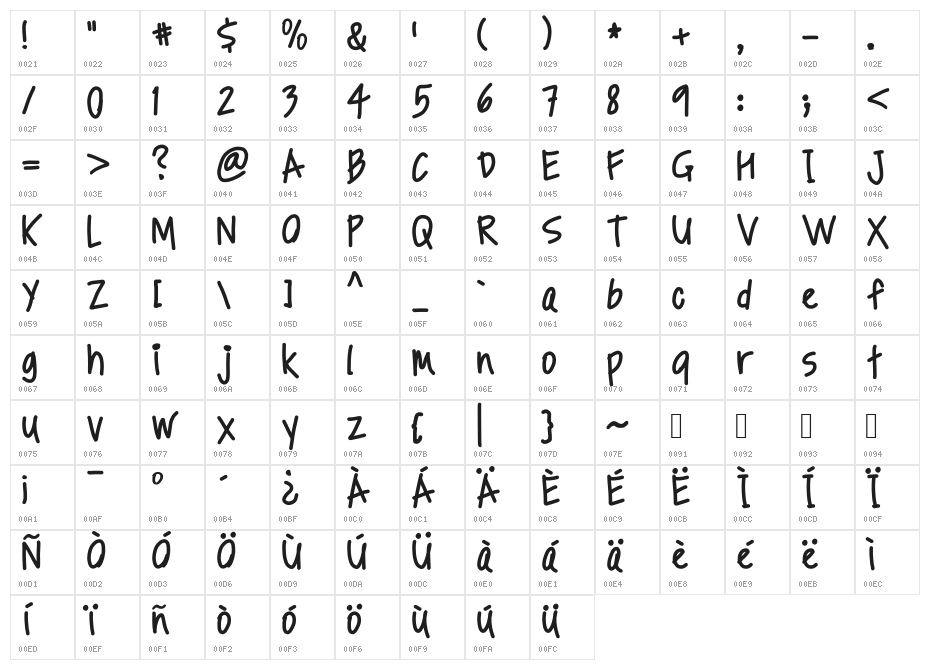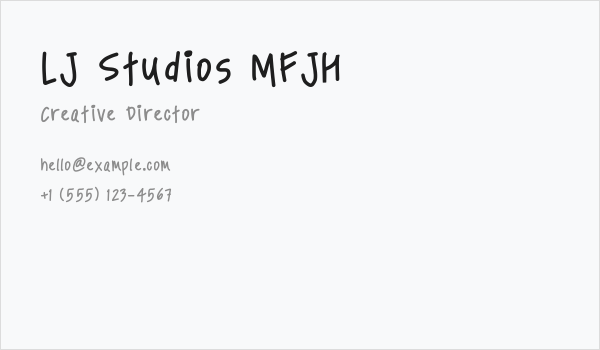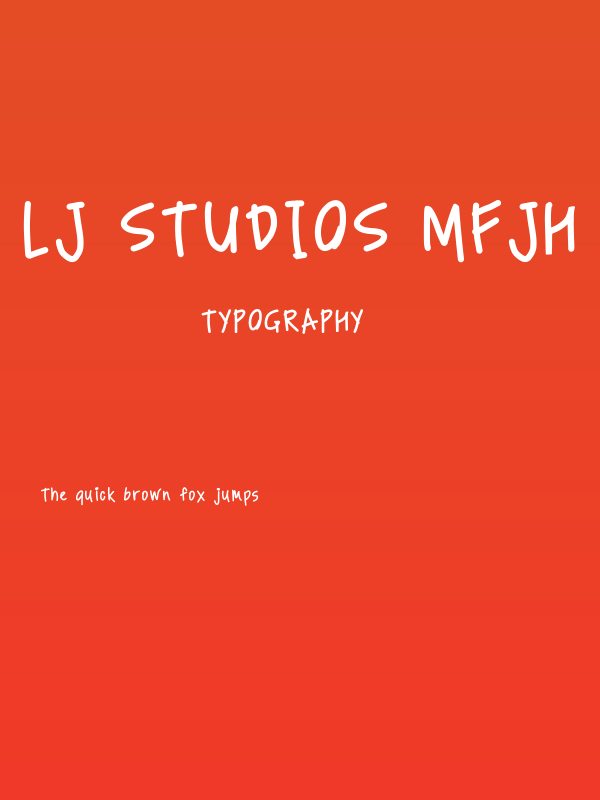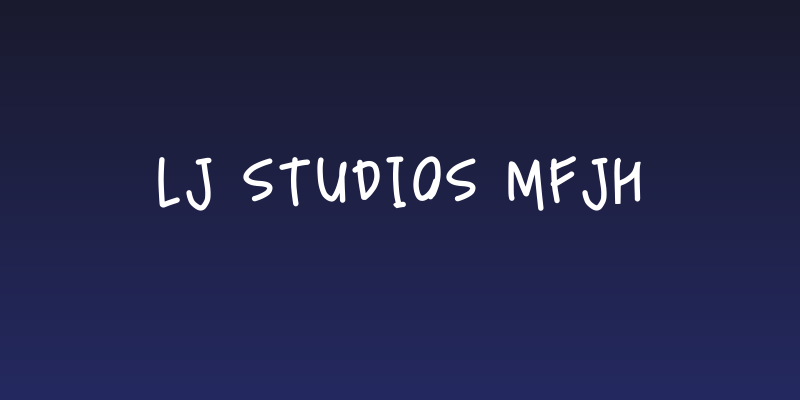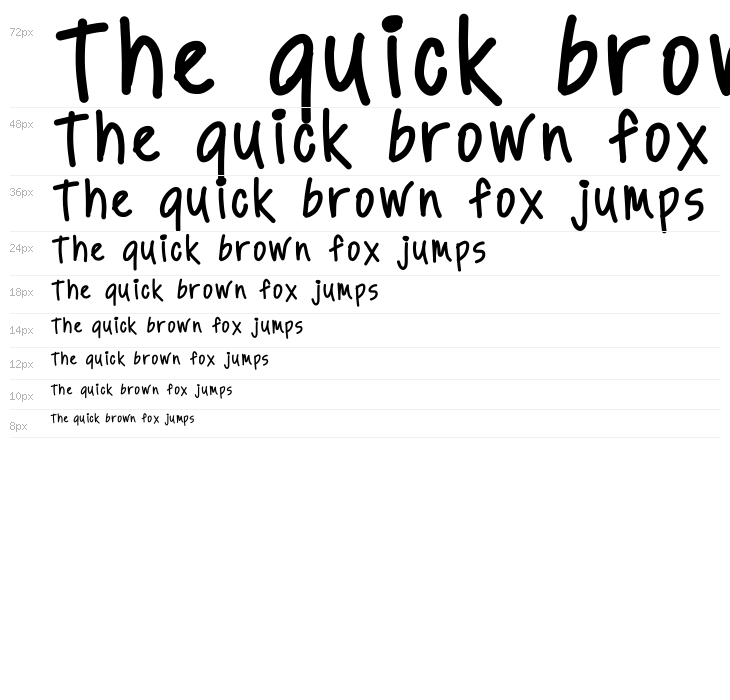
LJ Studios MFJH Font
LJ Studios MFJH Description
This font exudes a playful and casual vibe, characterized by its handwritten style that mimics natural penmanship. The letters are slightly irregular, adding a touch of authenticity and charm. The strokes are consistent in width, providing a balanced appearance that is easy on the eyes. The font includes a full set of uppercase and lowercase letters, numbers, and a variety of special characters, making it versatile for different uses. Its informal style makes it suitable for projects that aim to convey friendliness and approachability.
| Use Case | Headlines, Informal text, Personal projects |
| Proposed Projects | Ideal for greeting cards, children's books, personal blogs, and informal branding projects. |